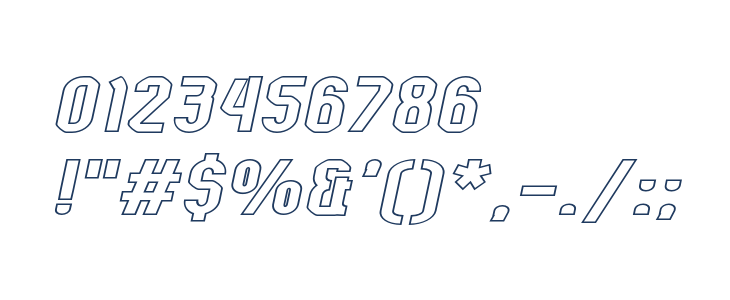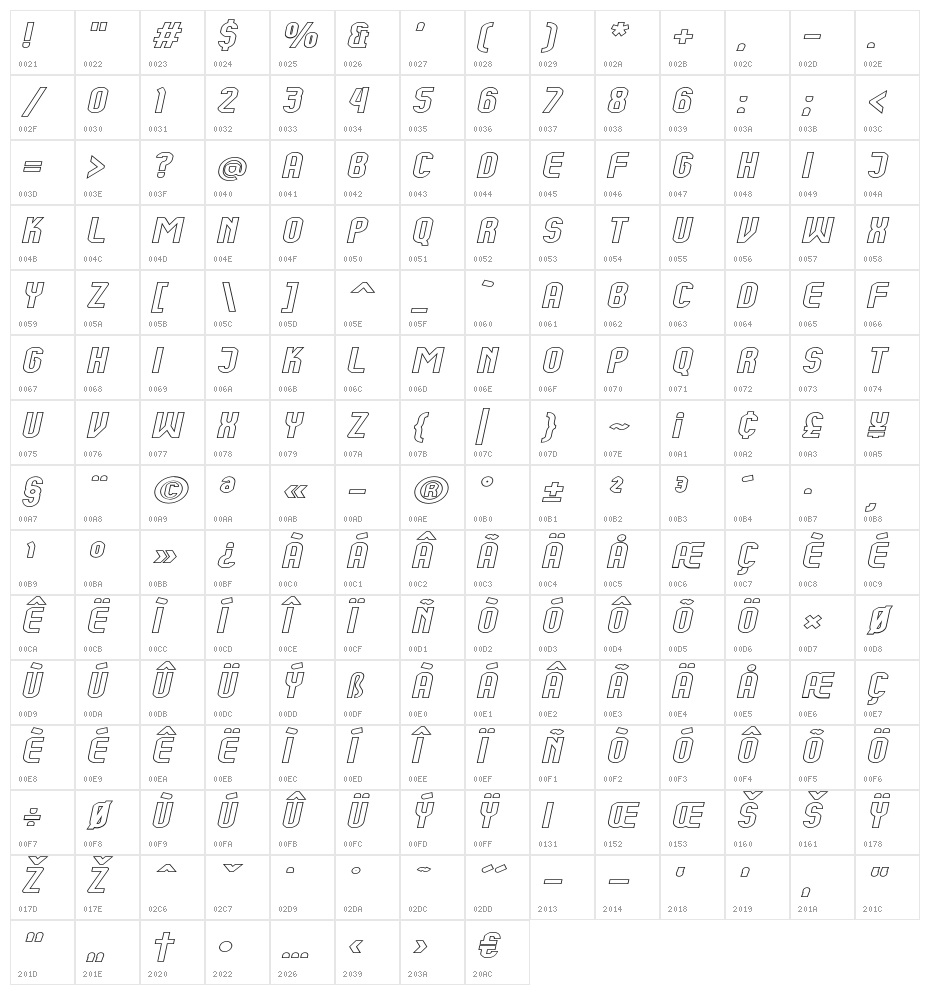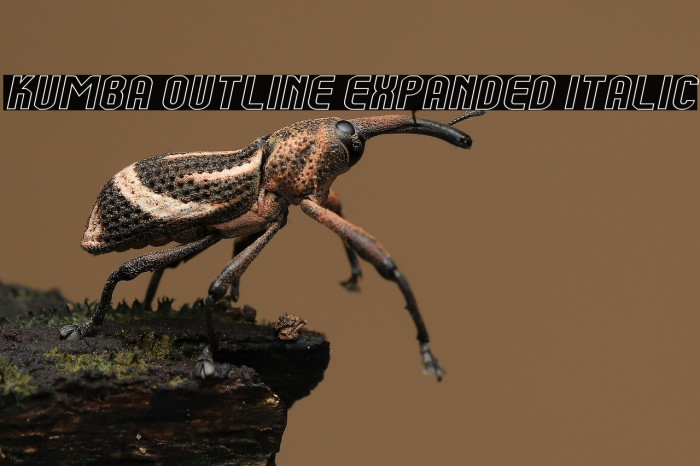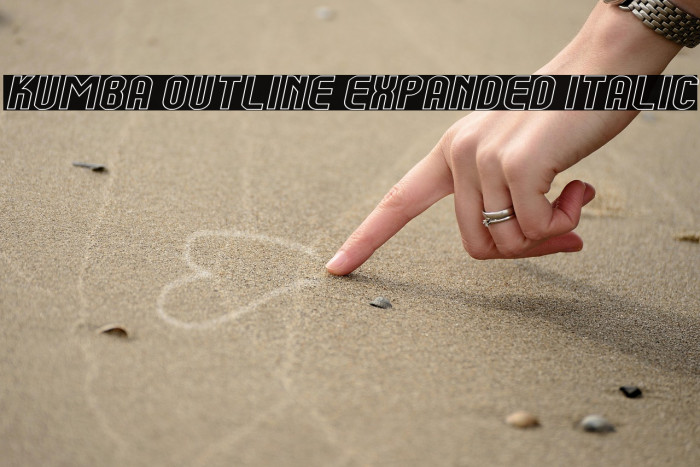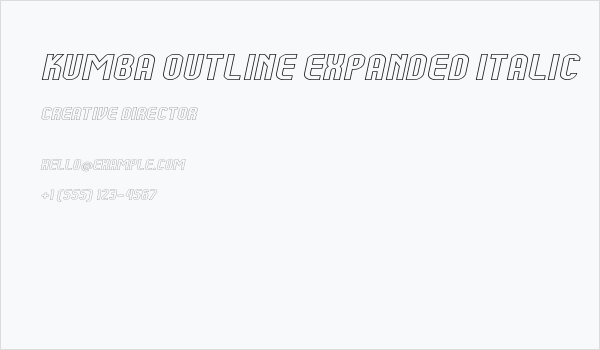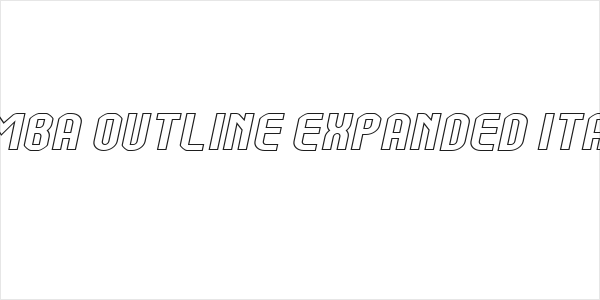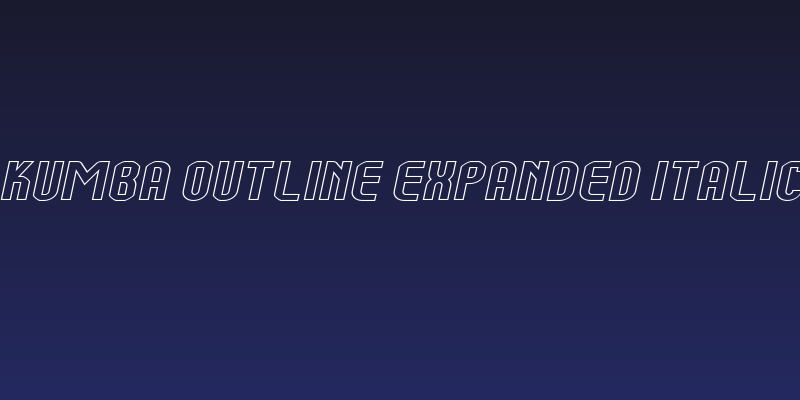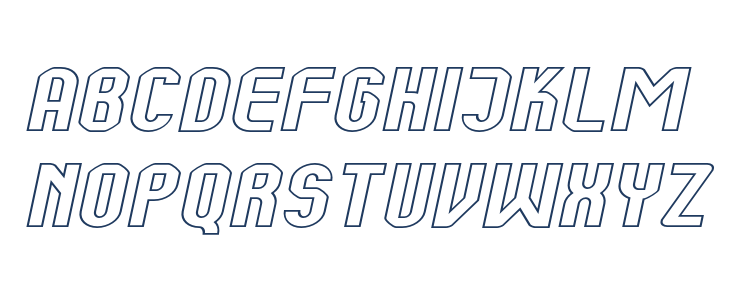
Kumba Outline Expanded Italic Font
Kumba Outline Expanded Italic Description
This font features a bold, outlined style with an expanded width and italic slant, giving it a dynamic and modern appearance. The characters are uppercase and lowercase letters, numerals, and a variety of special symbols. The outline design provides a unique aesthetic that stands out, making it suitable for eye-catching designs. The expanded width allows for a more spacious and open look, while the italic angle adds a sense of motion and fluidity. This combination of features makes it ideal for projects that require a bold statement or a contemporary feel.
| Proposed Projects | Ideal for headlines, posters, branding, and any design requiring a striking and modern look. |